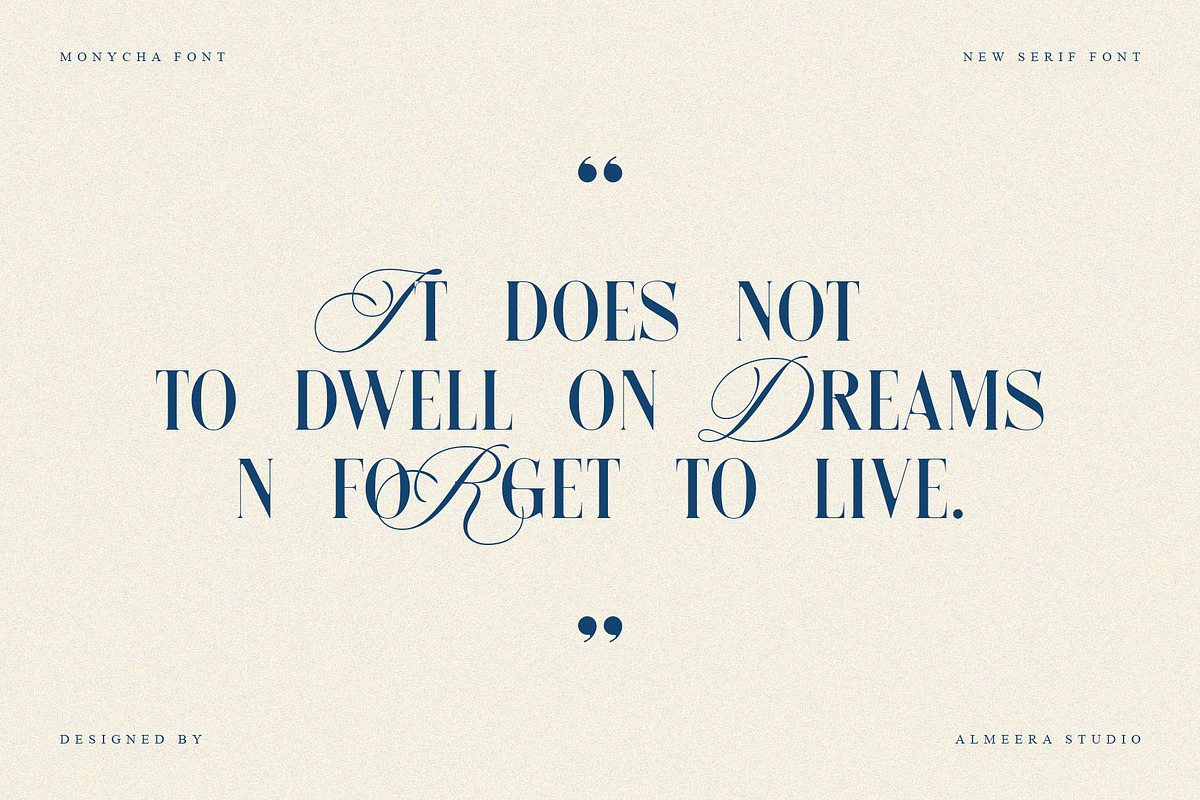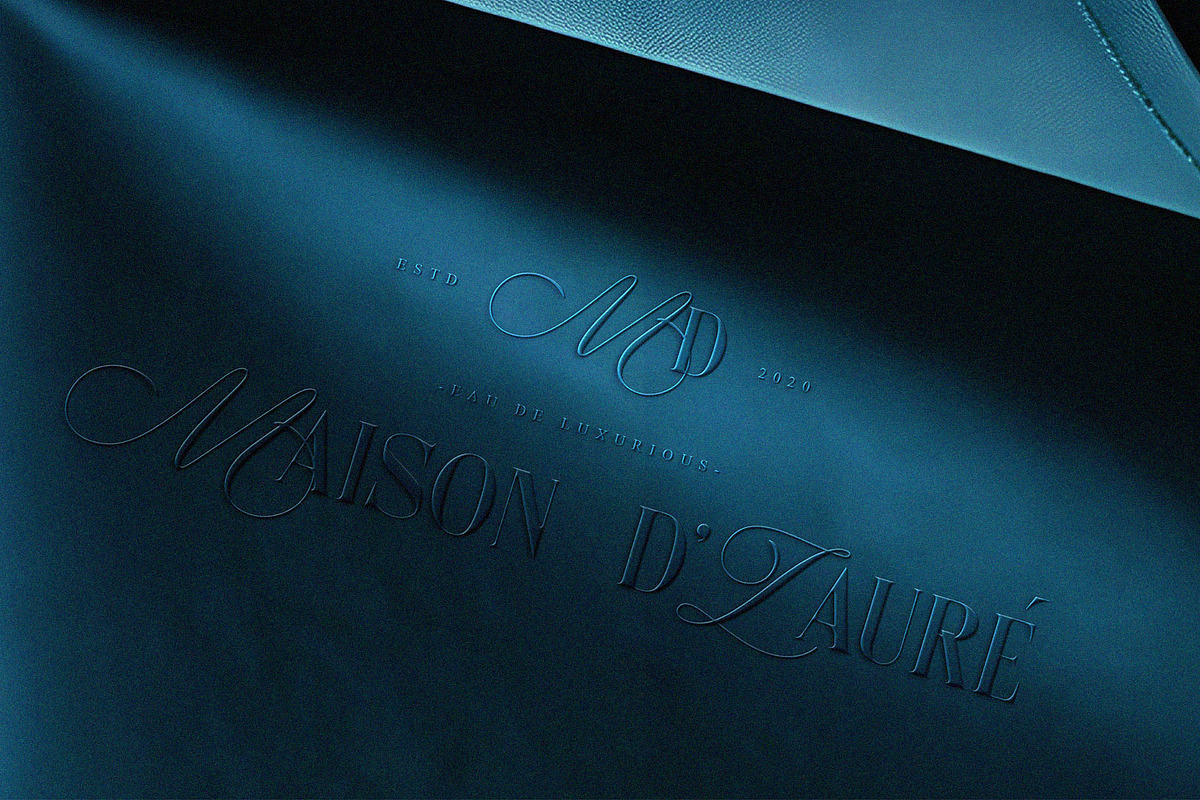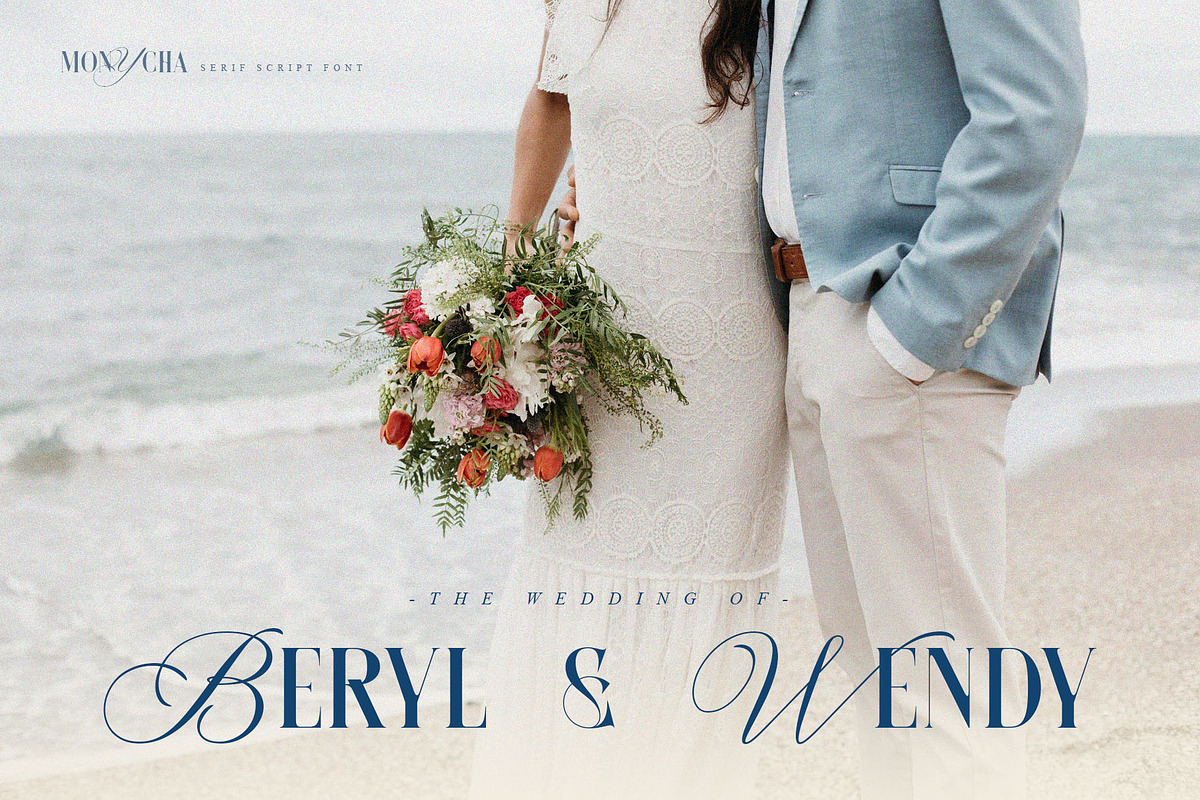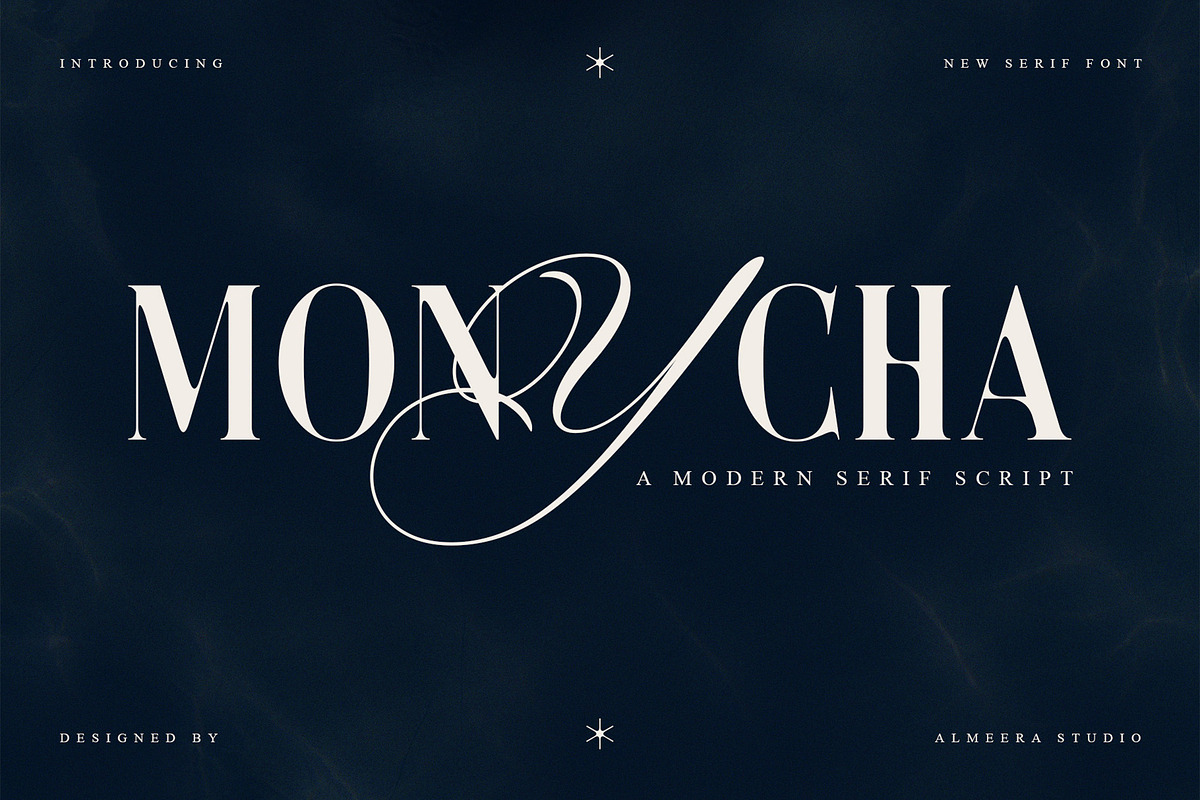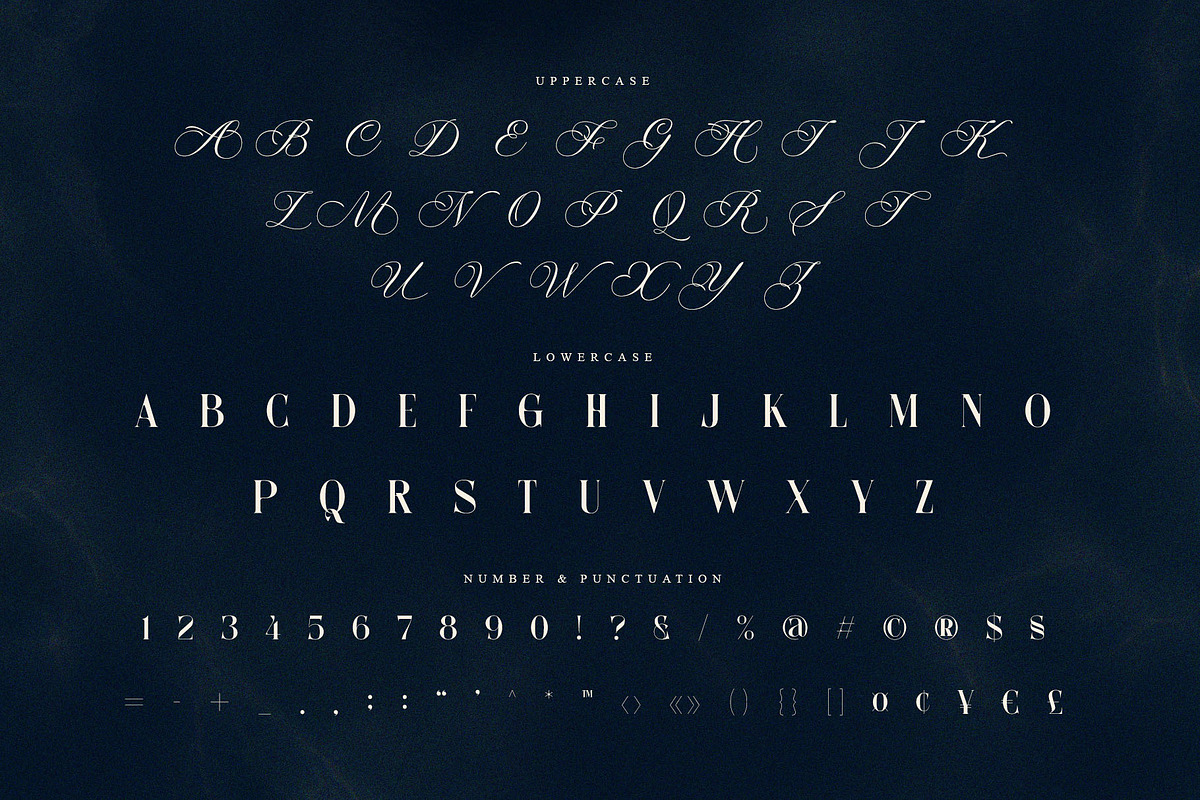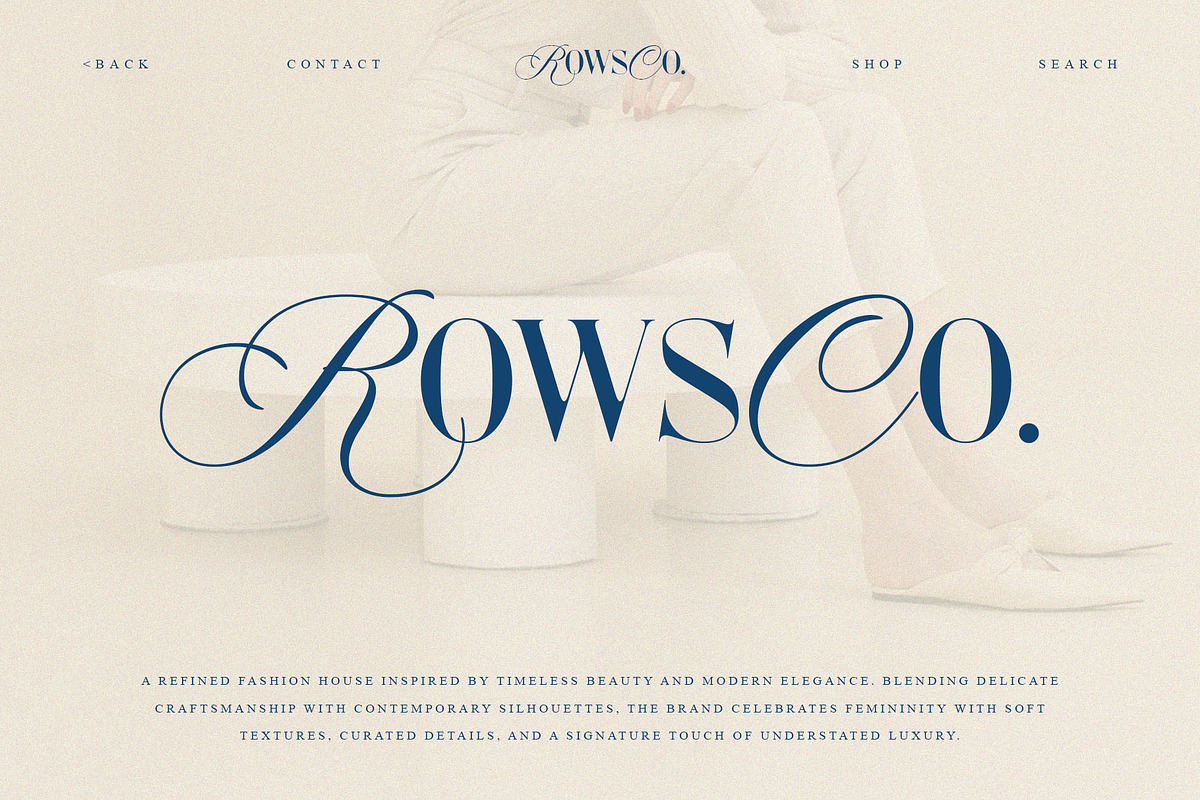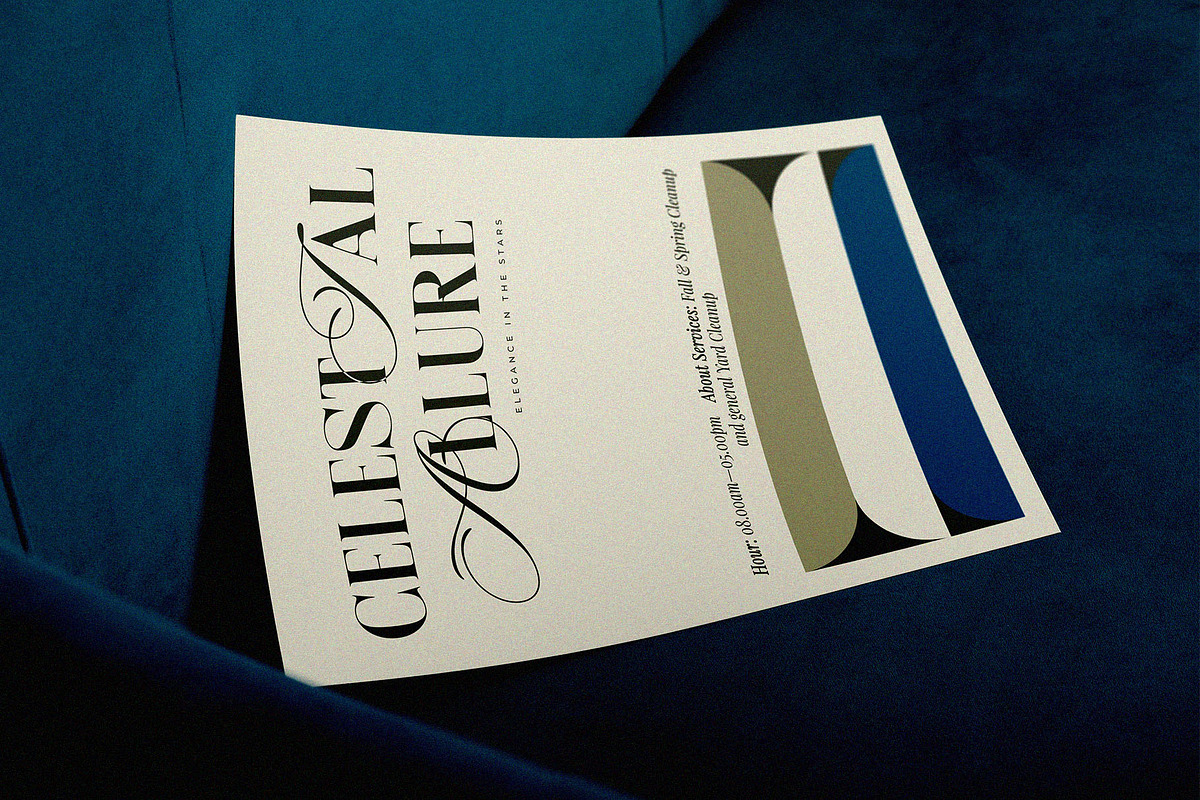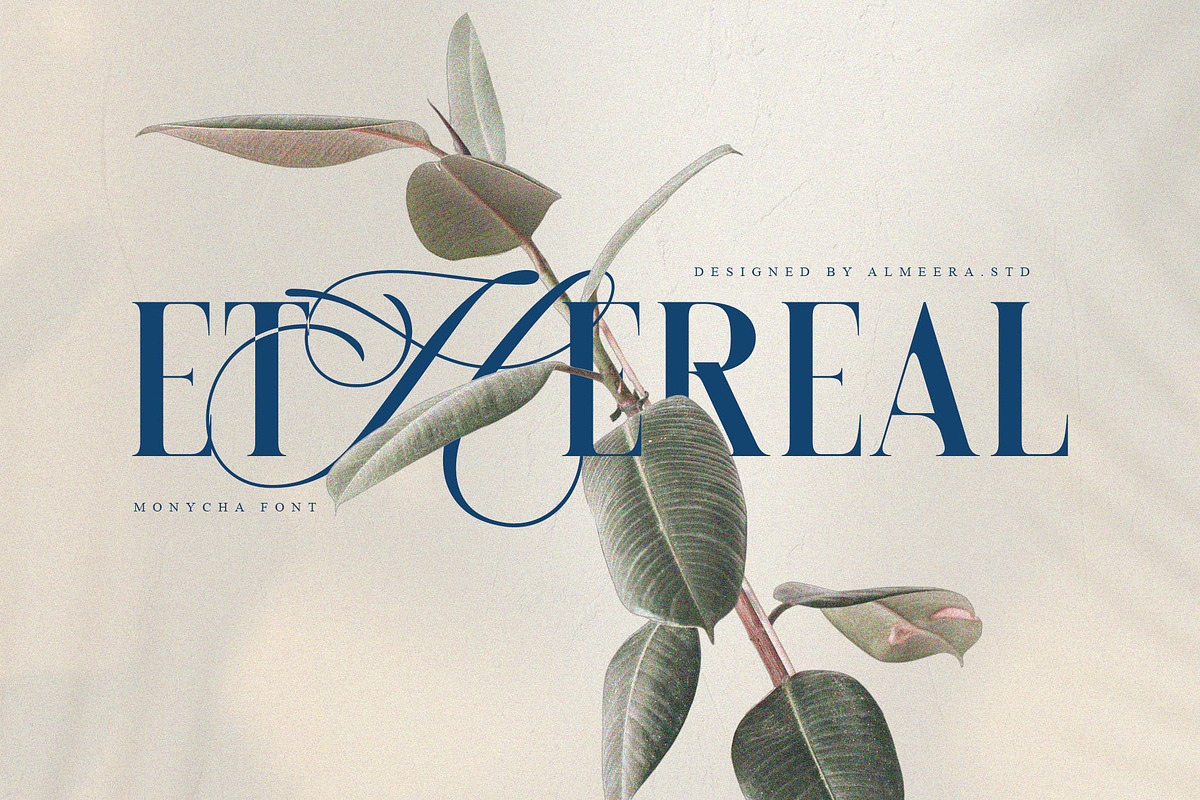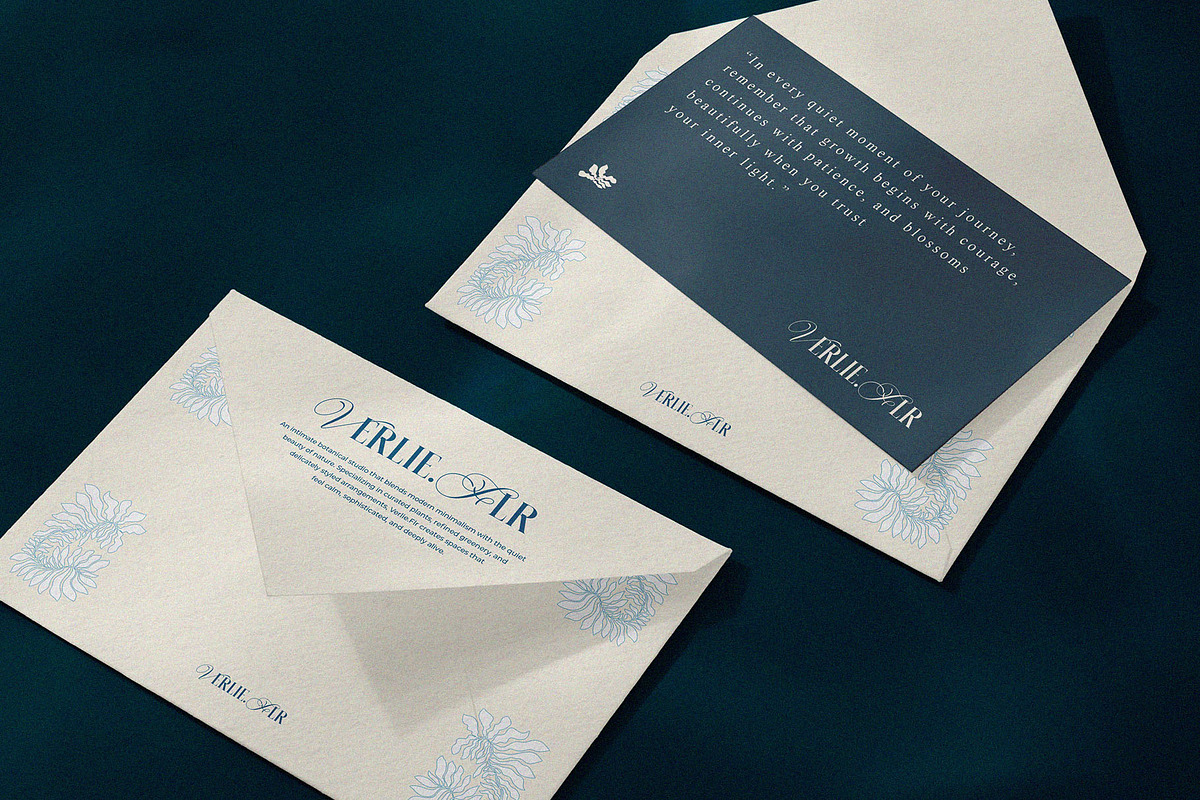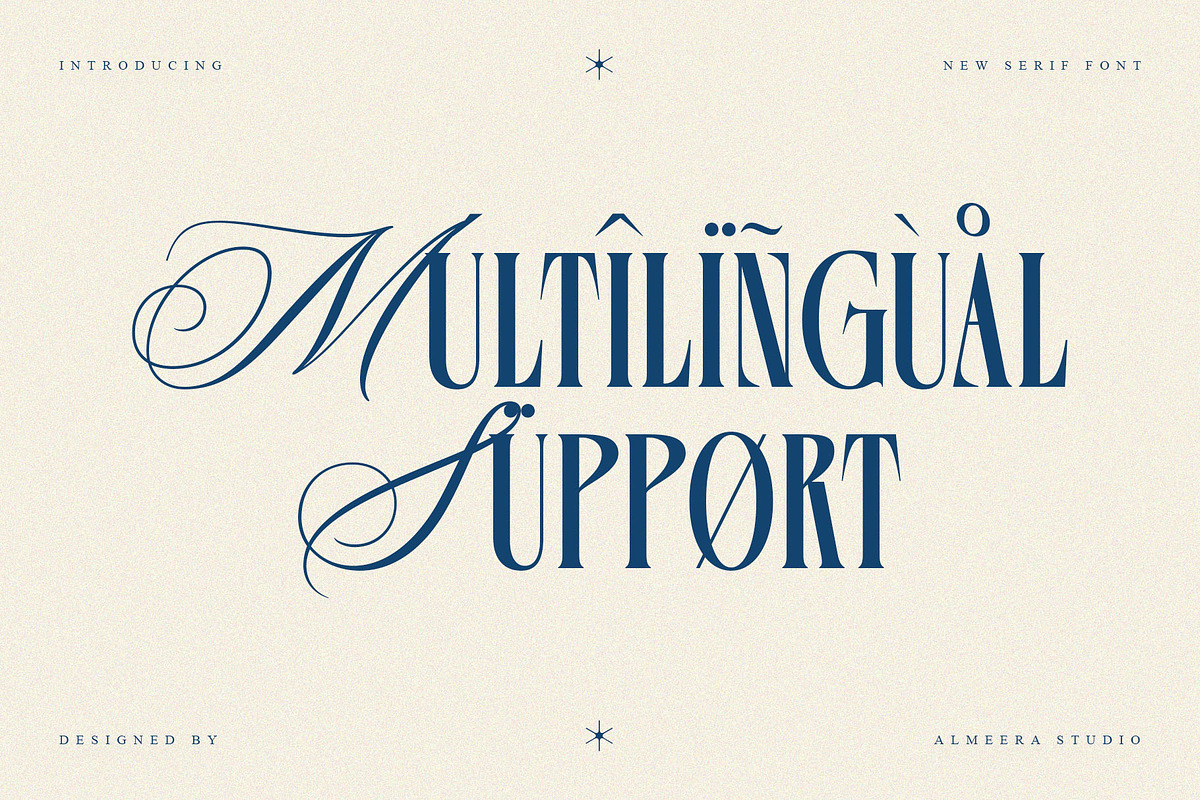
Monycha — Modern Serif Script
Monycha is a modern serif script that gracefully blends classic serif letterforms with expressive calligraphic swashes. This unique combination creates a refined yet dynamic aesthetic, making Monycha ideal for luxury branding, editorial titles, invitations, packaging, and sophisticated creative projects.
Its elegant contrast and flowing script elements add character without sacrificing readability. Designed to stand out while remaining timeless, Monycha brings harmony between tradition and modern design.